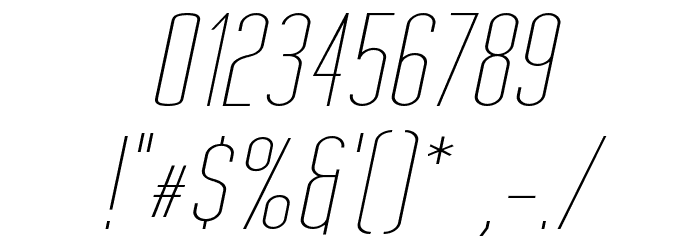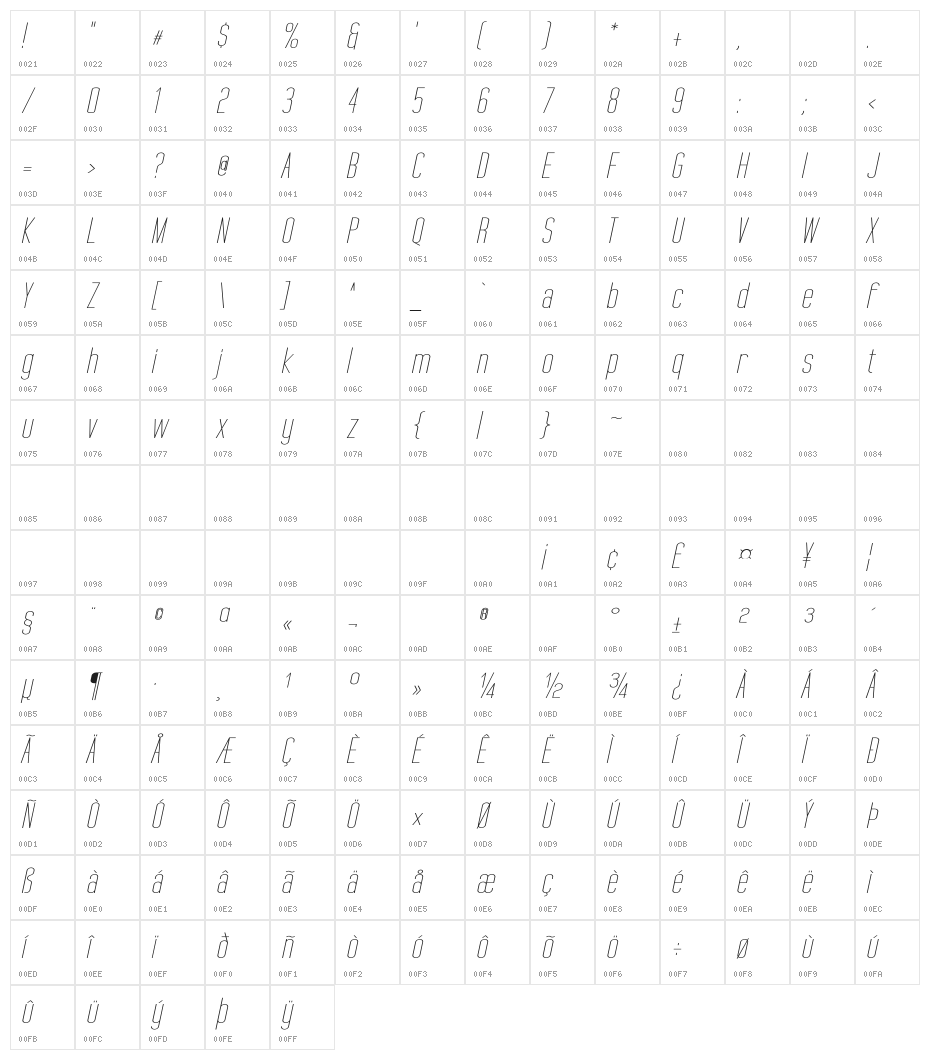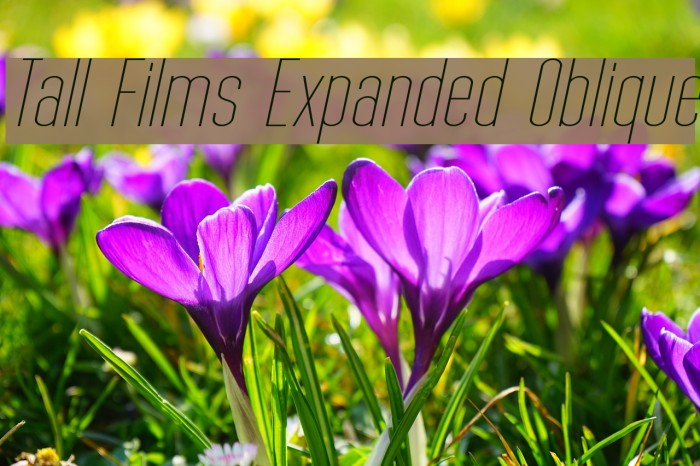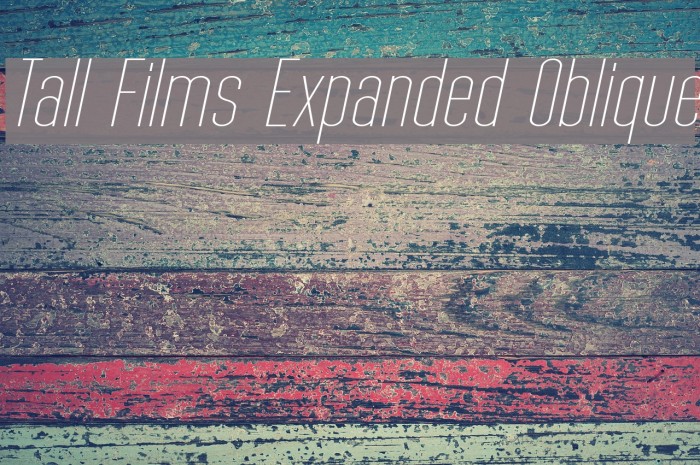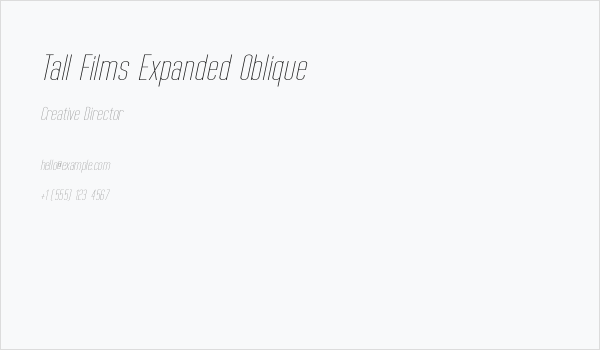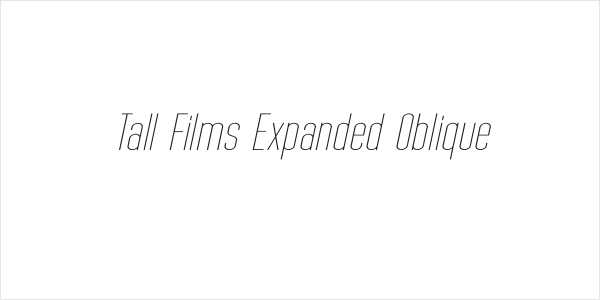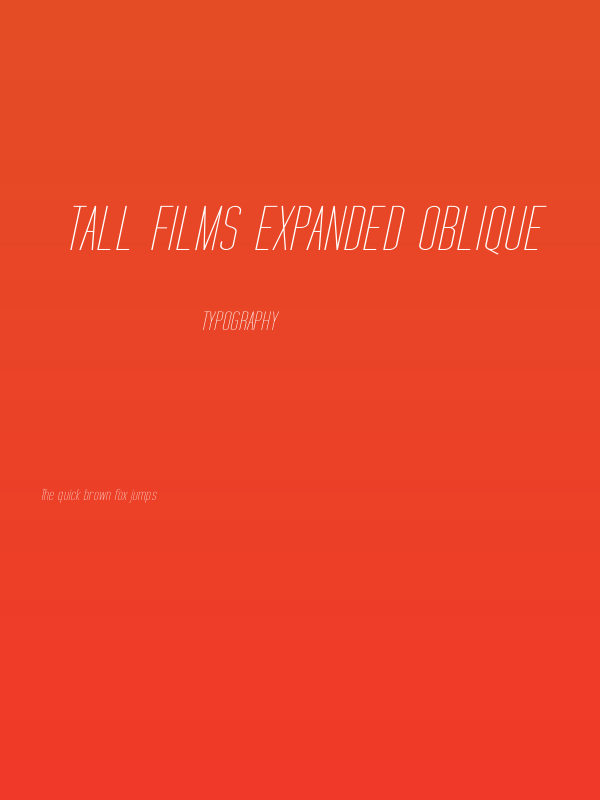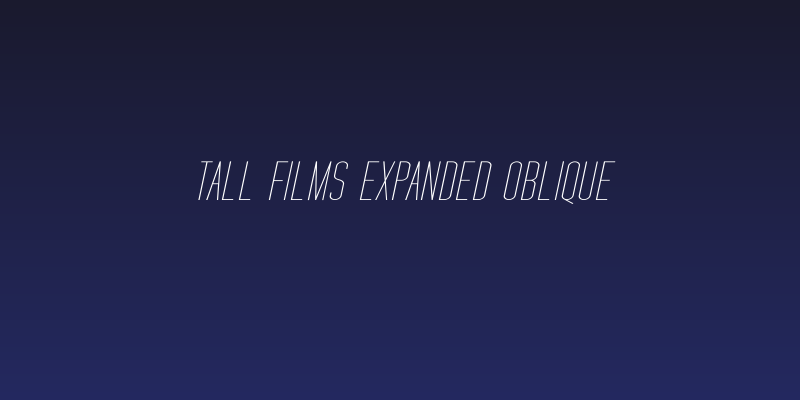
Tall Films Expanded Oblique Font
Tall Films Expanded Oblique Description
This font features a sleek, elongated design with a distinct oblique slant, giving it a dynamic and modern appearance. The characters are tall and narrow, contributing to an expanded feel that enhances readability while maintaining a stylish aesthetic. The font's clean lines and minimalistic approach make it suitable for contemporary design projects. It includes a full set of uppercase and lowercase letters, numbers, and a variety of special characters, ensuring versatility across different applications. The uniform stroke width adds to its streamlined look, making it ideal for projects that require a touch of elegance and sophistication.
| Proposed Projects | Ideal for movie posters, modern branding, editorial headlines, and digital media. |